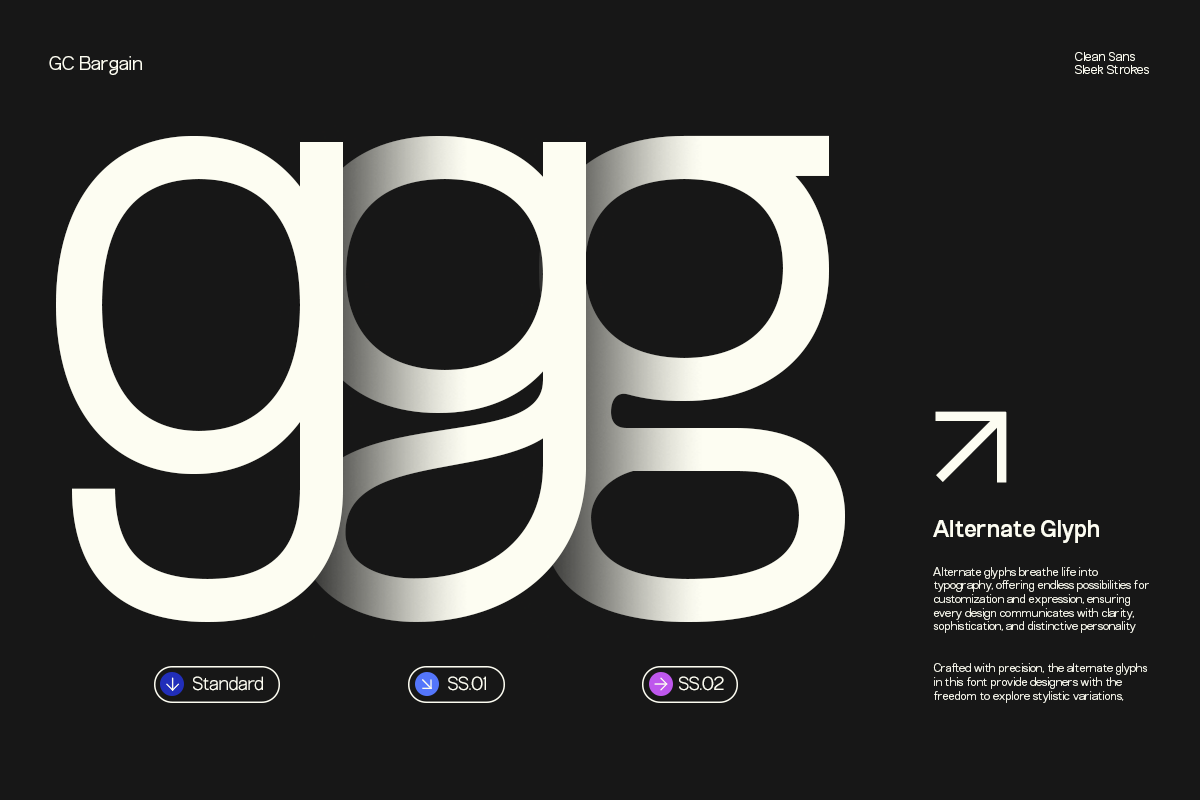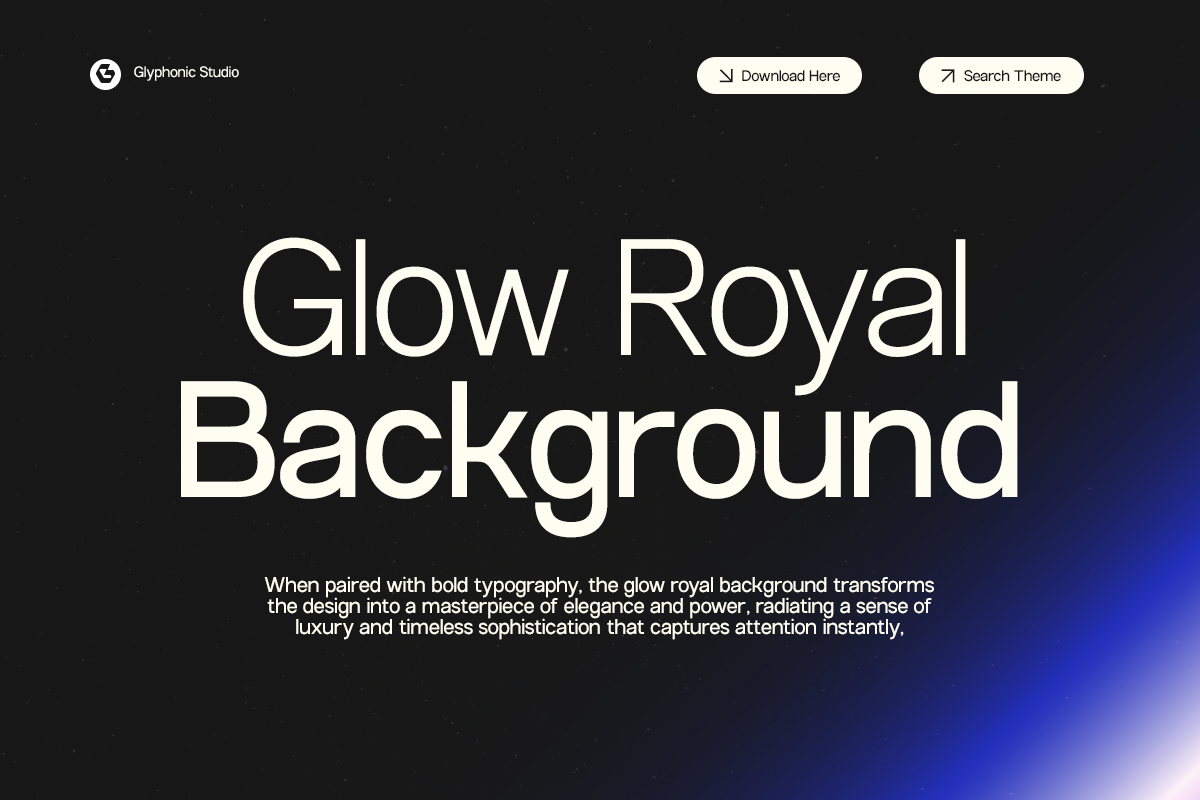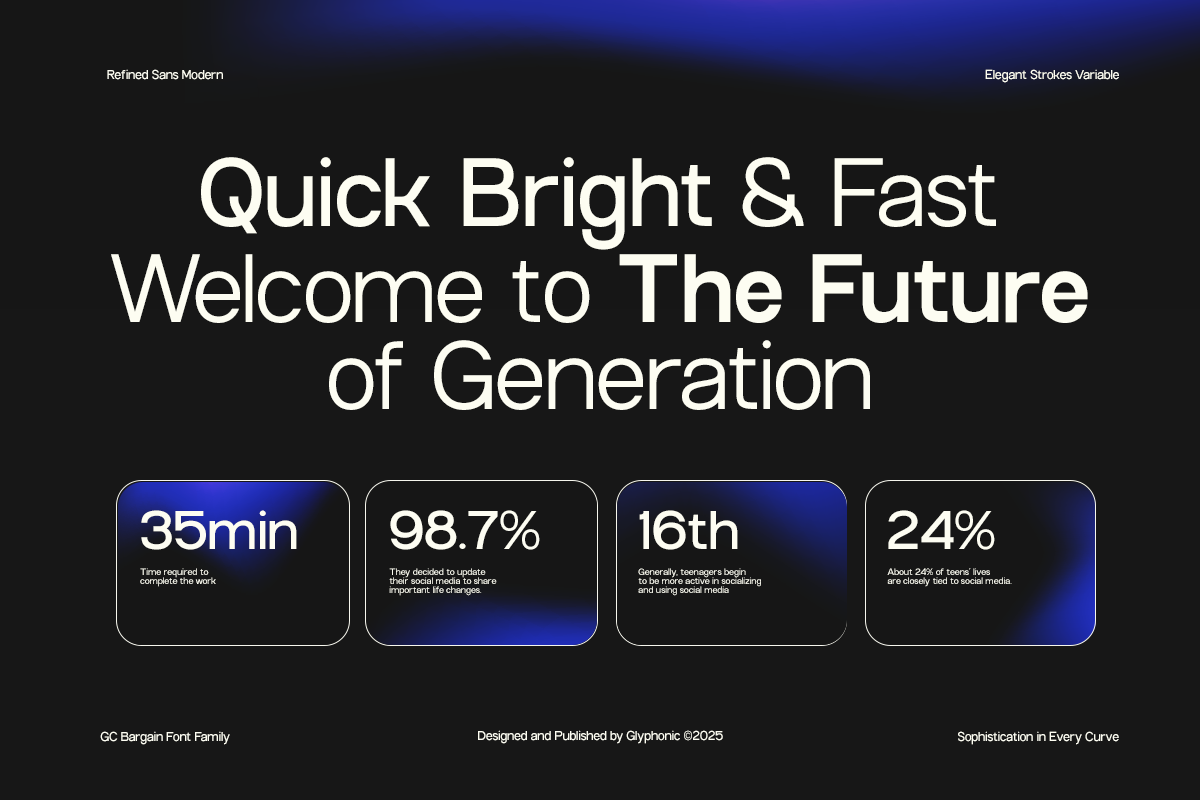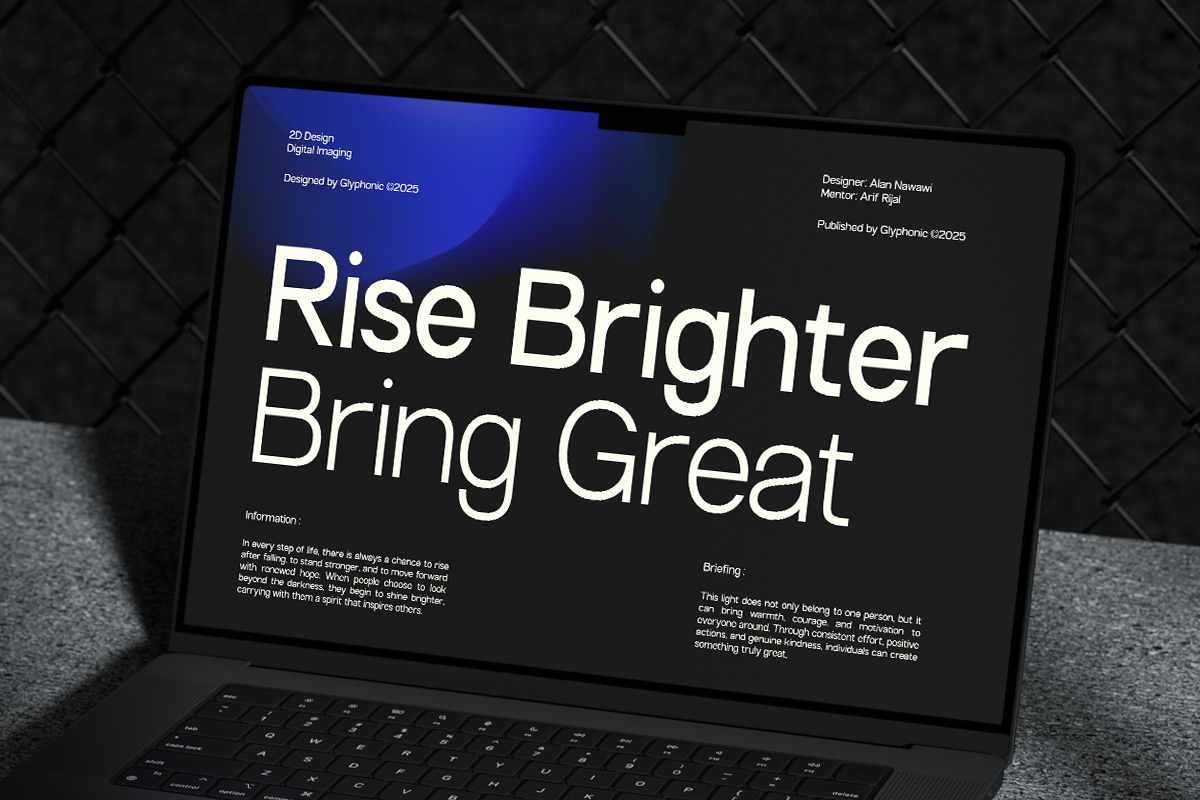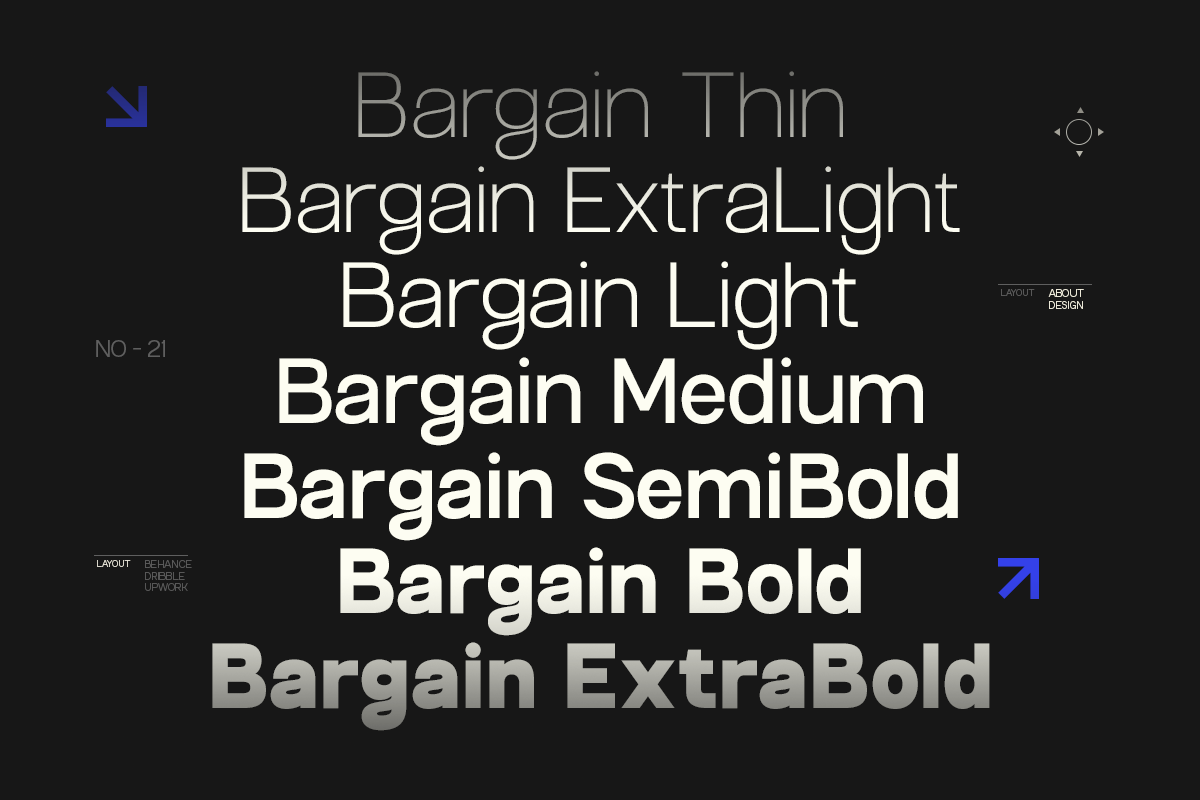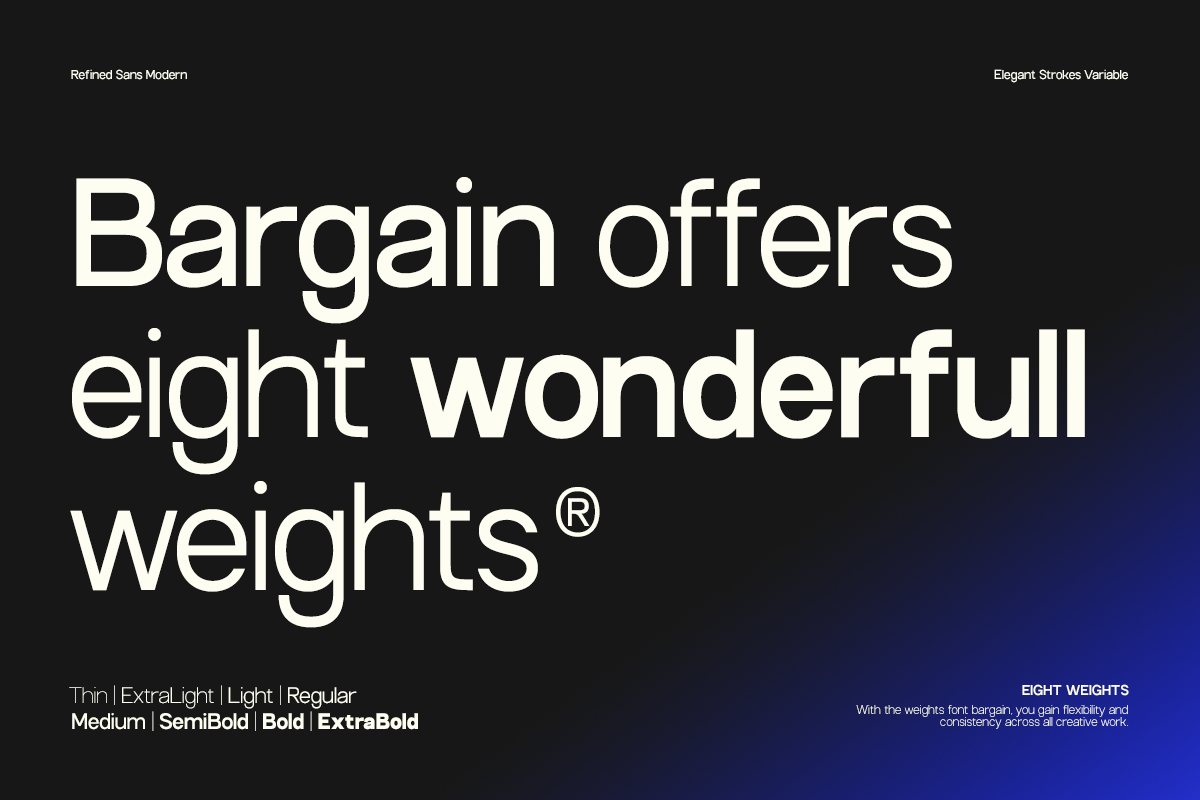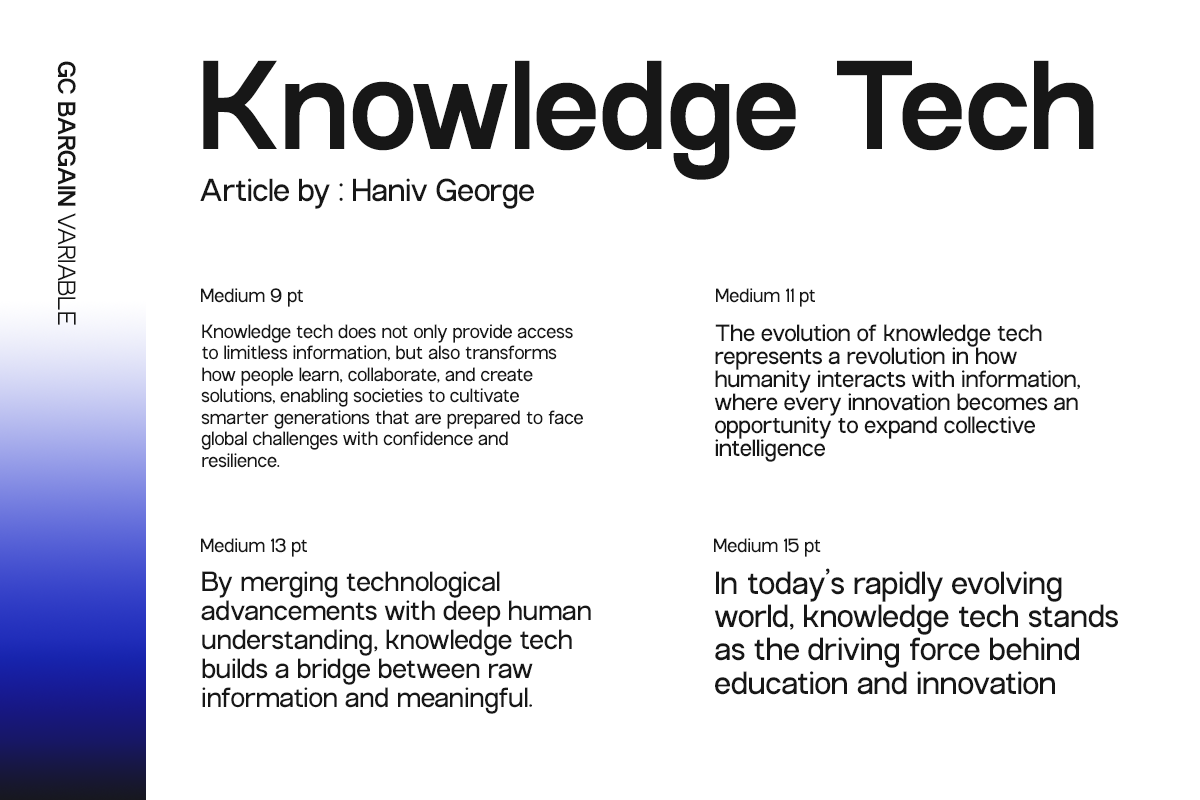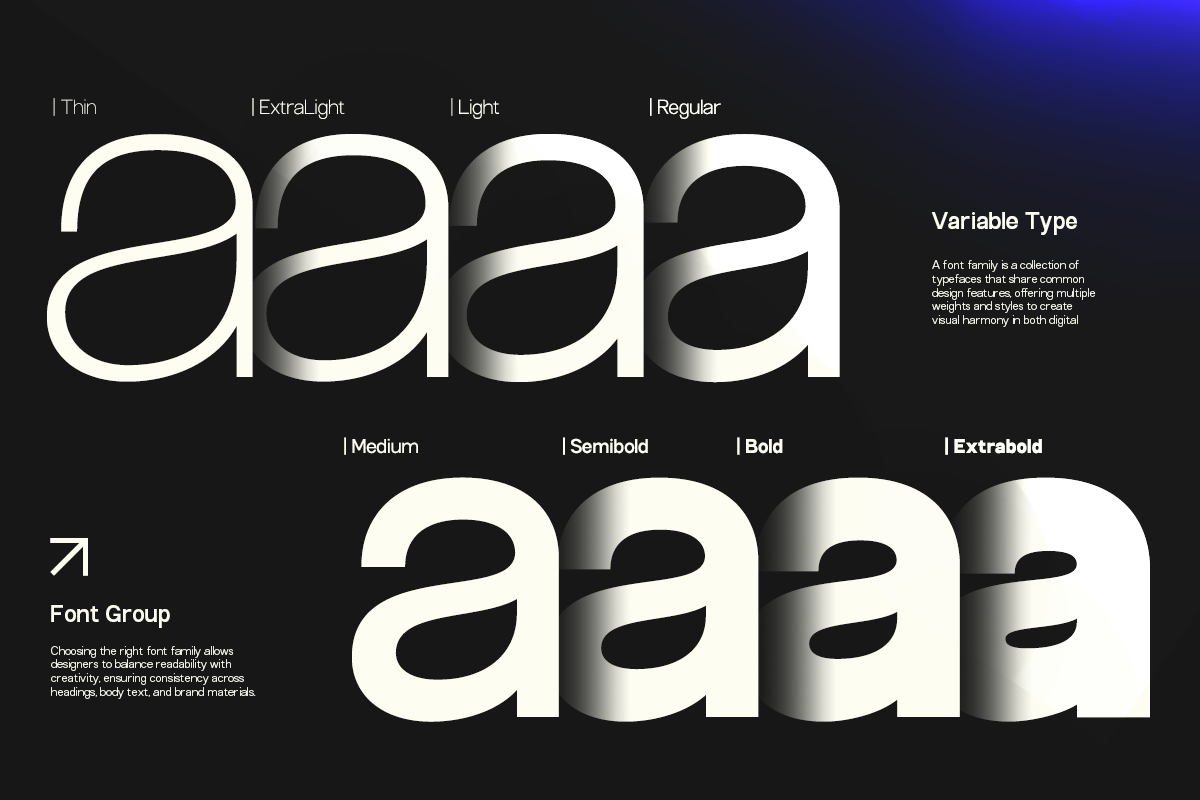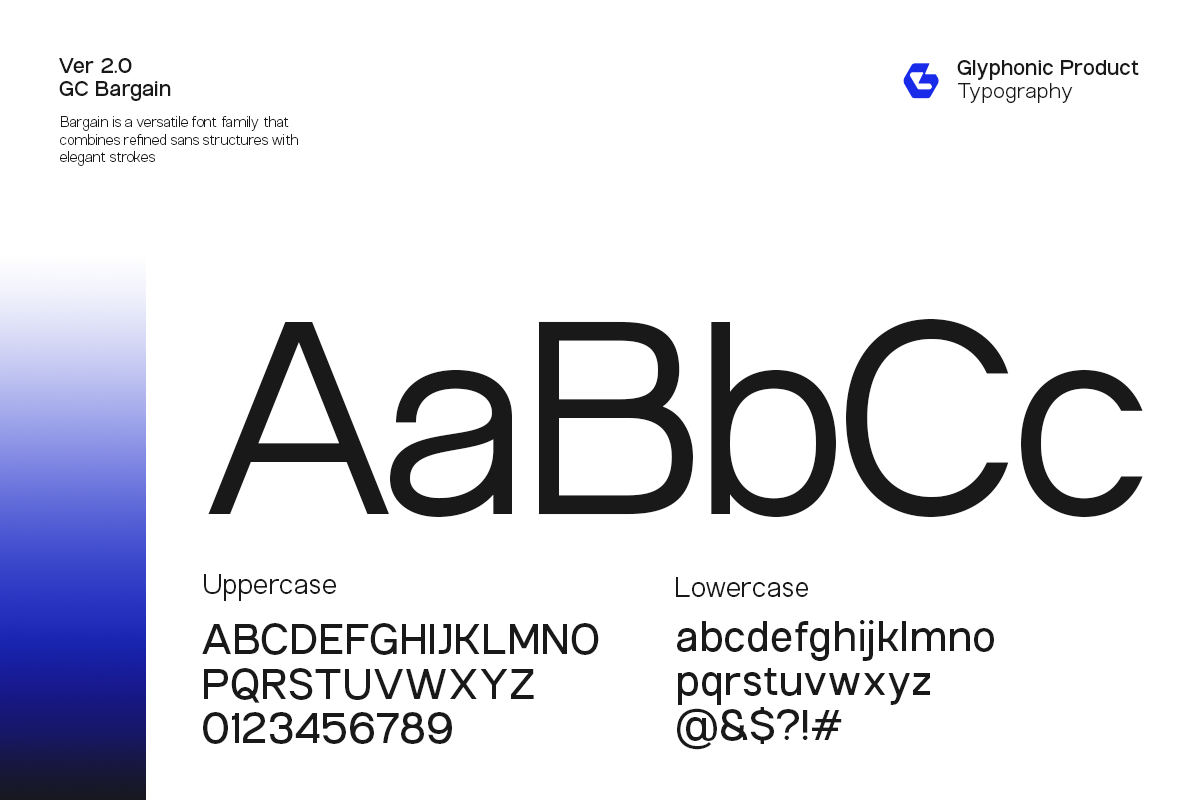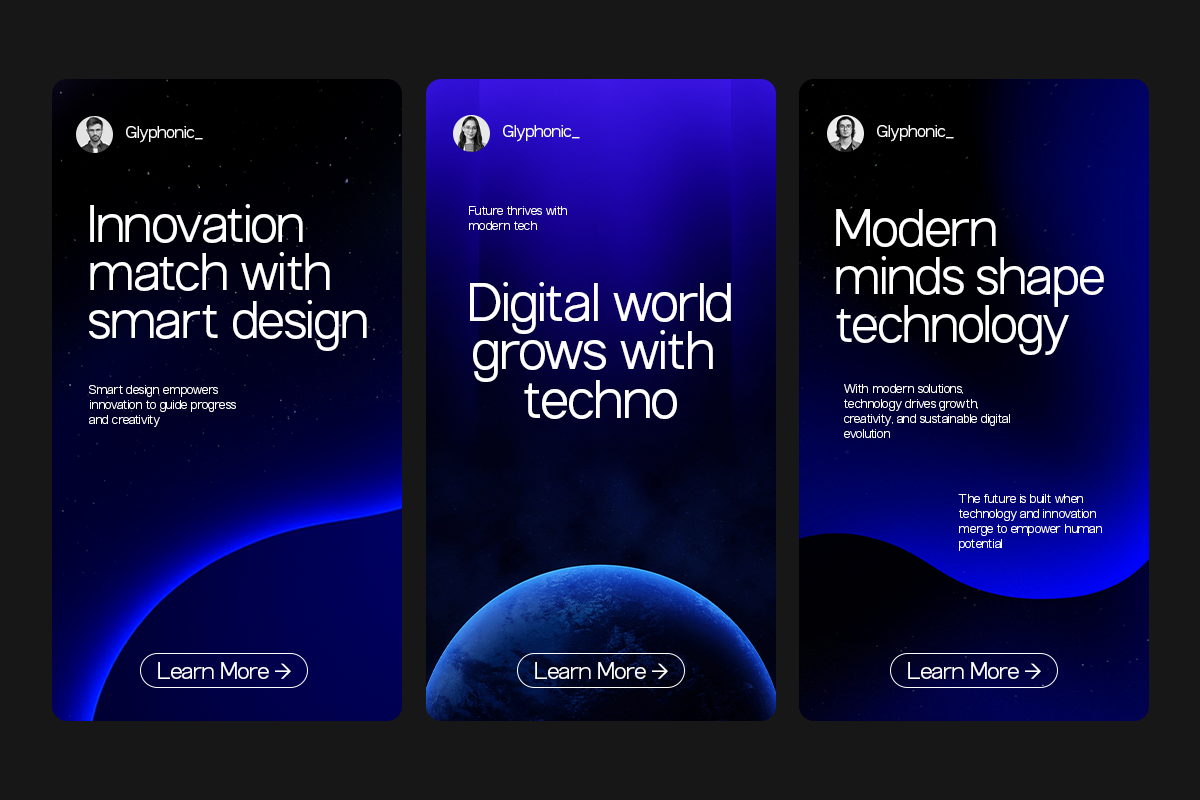
GC Bargain – Modern Sans Family
GC Bargain is an expanded sans-serif typeface family that combines modern simplicity with functional clarity. Upgraded from its original version, GC Bargain now comes as a complete family with multiple weights and styles, offering even greater flexibility for your design projects.Built for versatility and readability, it’s perfectly suited for headlines, branding, logos, packaging, editorial layouts, and digital interfaces—crafted to deliver a clean and confident visual message across all media.
With its low-contrast strokes, generous spacing, and balanced proportions, GC Bargain maintains a sleek, neutral, and timeless appearance. The extended family range makes it adaptable for bold statements, refined text, and everything in between—making it an ideal choice for modern design systems, minimalist layouts, tech branding, and everyday creative projects.
- Multiple Weights & Styles (Family Pack)
- Ligatures & Stylistic Alternates
- Multilingual Support (170+ Languages)
Bring clarity, strength, and modern elegance to your design with the updated GC Bargain Family.